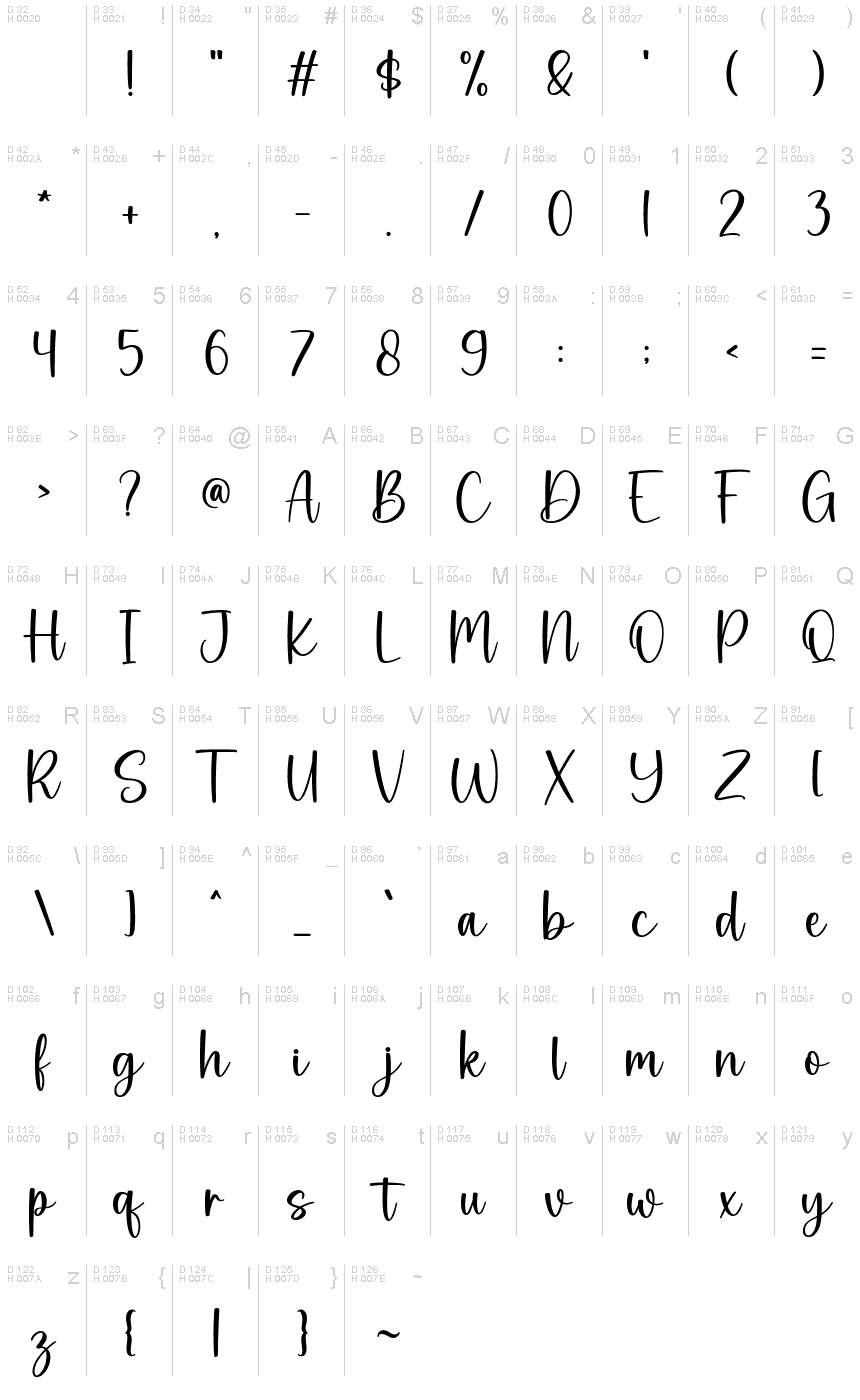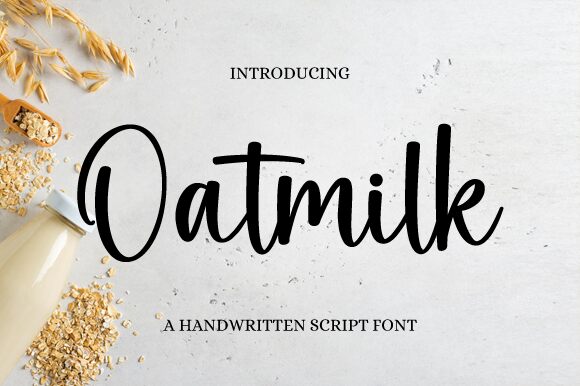
Oatmilk
Oatmilk, designed by Graphix Line Studio, exudes a charm that's as comforting and familiar as its namesake. This semi-light, handwritten font captures the essence of personal touch with its fluid, organic strokes and subtle elegance. Its gentle curves and easy readability make it a delightful choice for designers seeking to imbue their projects with warmth and authenticity.
With an aesthetic that feels both modern and timeless, Oatmilk is versatile enough to enhance anything from branding materials to heartfelt invitations. Whether you're crafting a logo that demands approachability or setting the mood for intimate storytelling in editorial layouts, Oatmilk's style offers an inviting ambiance without sacrificing sophistication.
Embrace the distinct personality of Oatmilk for your next creative endeavor and let its understated grace speak volumes in your design language.